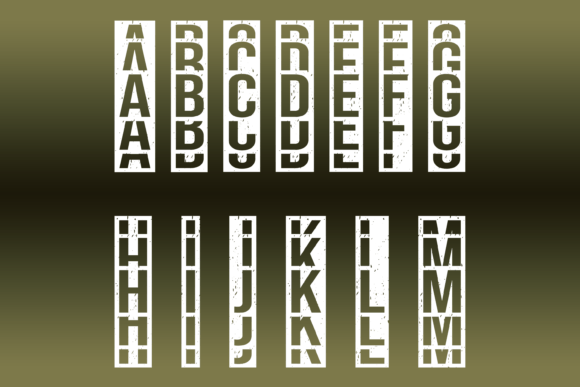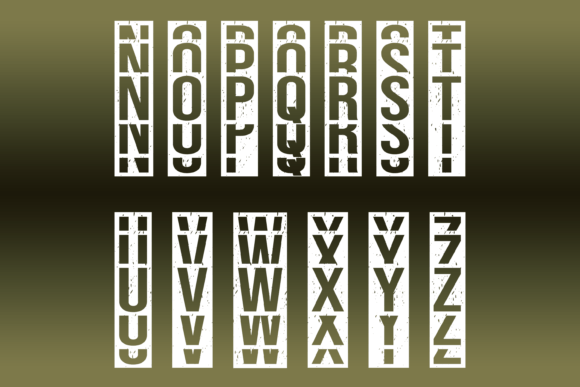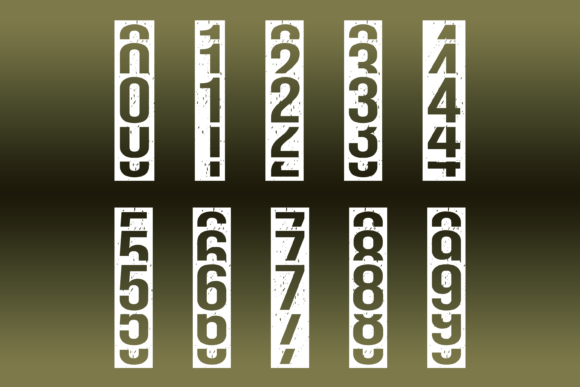
Introduction to Smudge Font
Have you ever found yourself rummaging through your craft supplies, searching for the perfect embellishment to bring your latest creative project to life? It’s that moment of discovery, when you stumble upon a unique font that elevates your design and adds an extra layer of personality. For many designers, that font is Smudge Font – an incredibly cool font that offers a high-quality, one-of-a-kind touch to any project.
Whether you’re working on a DIY craft, designing a beautiful logo, or simply need a design resource for your next creative venture, Smudge Font is an invaluable asset. With its transparent background and free download option, it’s the perfect choice for designers of all levels. In this article, we’ll delve into the world of Smudge Font and explore why it’s a valuable addition to any design arsenal.
Key Features of Smudge Font
- High-quality, vector-based design for seamless scaling and printing
- Transparent background, making it easy to layer over other design elements
- Includes a range of weights and styles to suit various design needs
- Designed for use in digital and print applications, with a resolution of 300 DPI
Honest Review: Smudge Font
I recently stumbled upon the Smudge Font and was excited to give it a try. As a designer, I’m always on the lookout for high-quality design resources to enhance my creative projects. The Smudge Font did not disappoint.
What works well: ✨ The font has a unique, hand-drawn feel that adds a touch of personality to any design project. The transparent background makes it easy to work with, and the free download was a nice bonus. The font is also highly customizable, allowing me to tweak the style to fit my needs.
Here are some of the key features that I appreciate:
- High-quality, detailed design
However, there are a few limitations to consider: ⚠️ The font is only available in a limited number of styles, which may not be suitable for every project. Additionally, the font may not be as legible at small font sizes.
Overall, I’m impressed with the Smudge Font. It’s a great addition to any designer’s toolkit, and I’m excited to see how it will enhance my future creative projects.
Smudge Font
Tips for Getting the Most Out of Smudge Font
Use Smudge Font on a transparent background to create a high-quality design that pops.
Combine Smudge Font with other design elements to create a unique and creative project.
Smudge Font is ideal for use in creative projects such as:
Brochures and flyers
Posters and advertisements
Business cards and letterheads